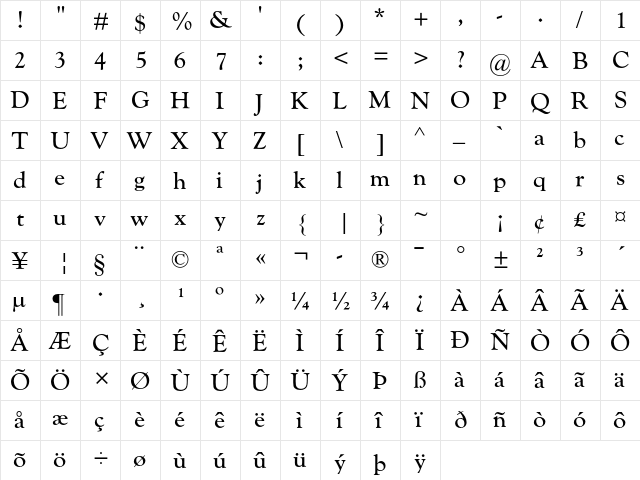
Goudy Catalogue MT Std Regular
Design Context for Goudy Catalogue MT Std Typeface
Goudy Catalogue MT Std offers clean, dependable letterforms without strong stylistic allegiance, making it a practical choice for designers who need flexibility.
Pro Tip: Pair Goudy Catalogue MT Std with a font of contrasting weight or personality to build a more expressive typographic hierarchy.